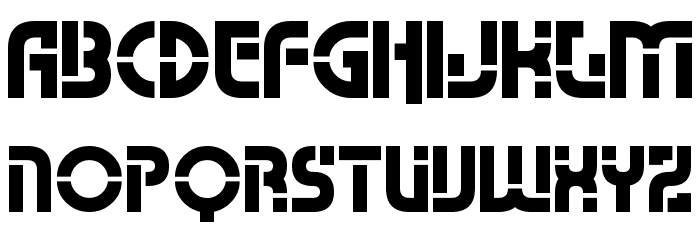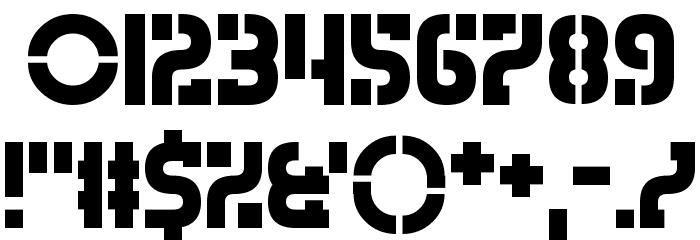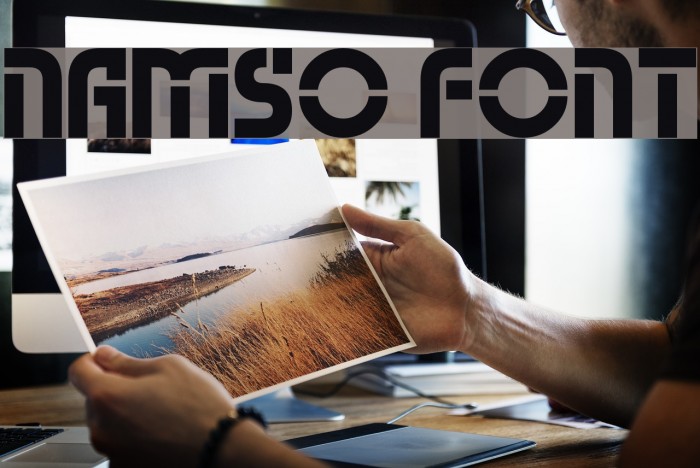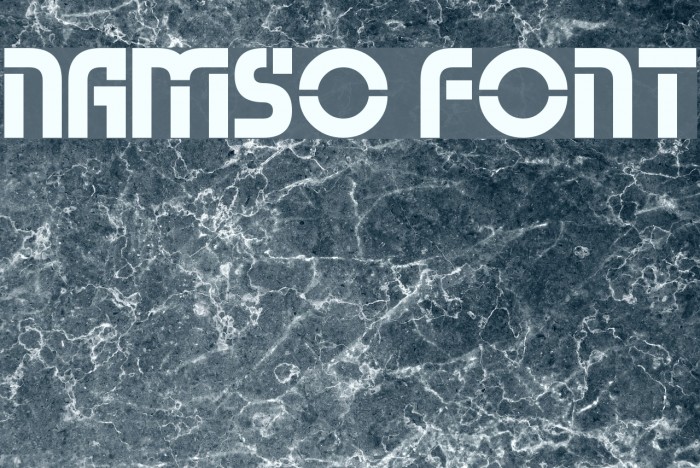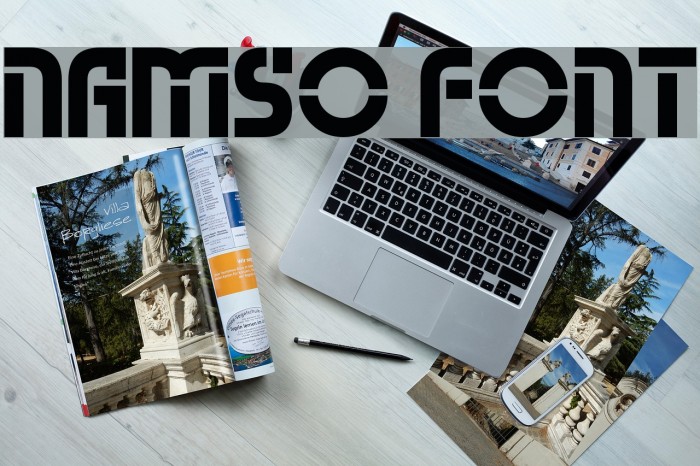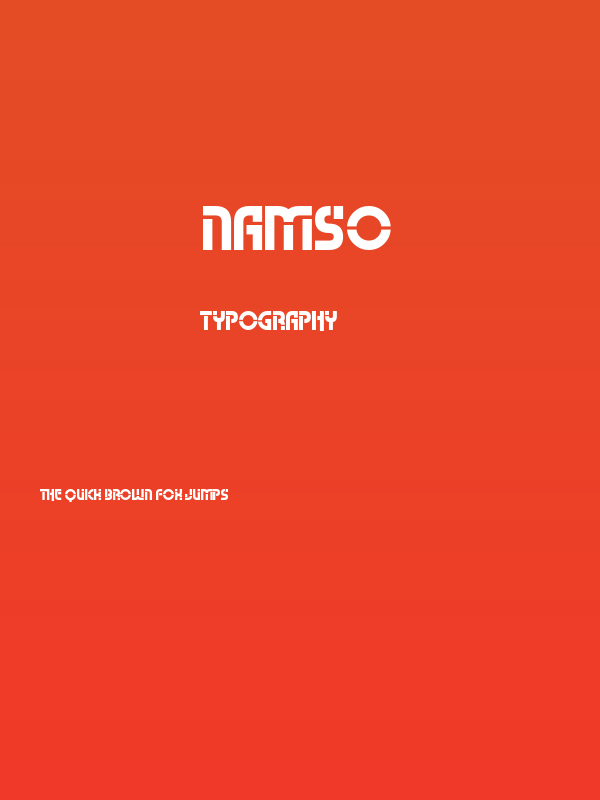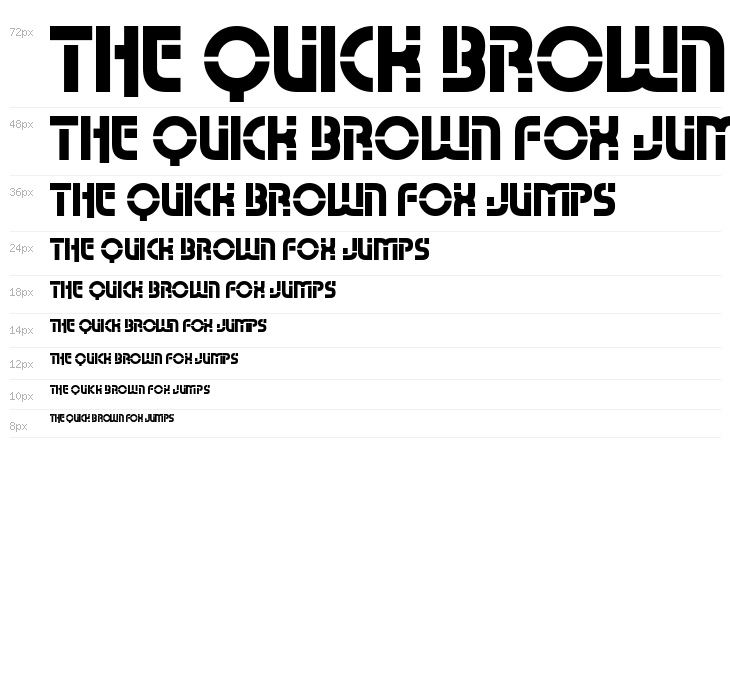
Namso Font
This font features a bold, geometric design with a futuristic aesthetic. Each character is constructed with thick, uniform strokes, creating a strong visual impact. The letters are composed of solid shapes with strategic cutouts, giving them a unique, segmented appearance. This style is consistent across uppercase, lowercase, numbers, and special characters, maintaining a cohesive look. The font's modern and industrial feel makes it suitable for projects that require a bold statement. Its distinctive design ensures high readability while adding a creative edge to any text.
A bold, geometric font with a futuristic and segmented design.
- Proposed Projects: Ideal for branding, posters, video game graphics, and sci-fi themed projects.